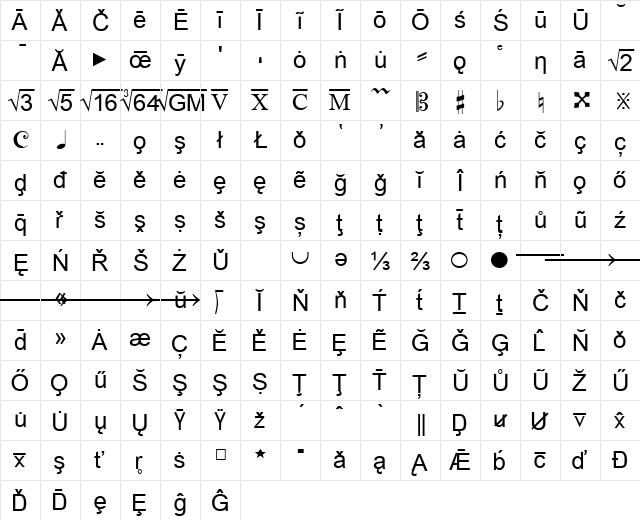
MOST Normal
Design Context for MOST Typeface
MOST offers clean, dependable letterforms without strong stylistic allegiance, making it a practical choice for designers who need flexibility.